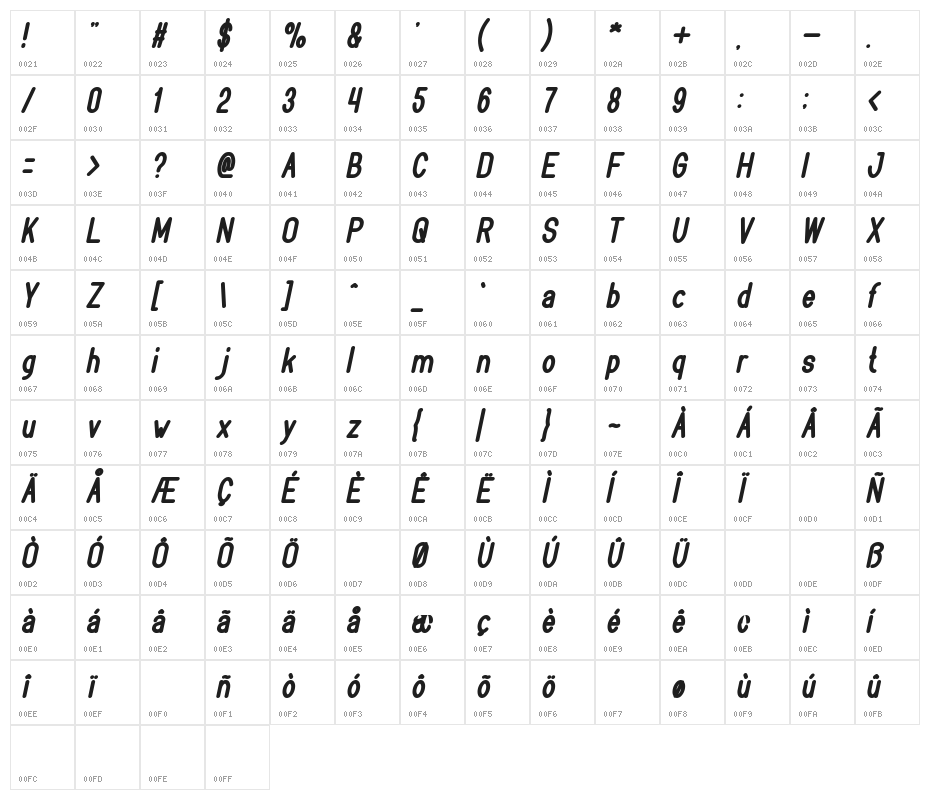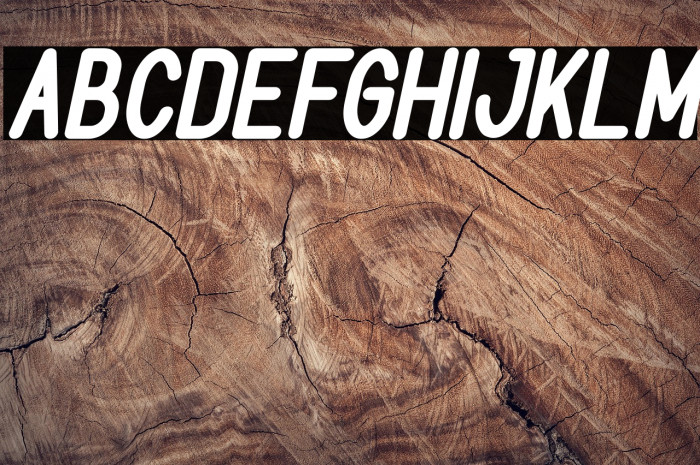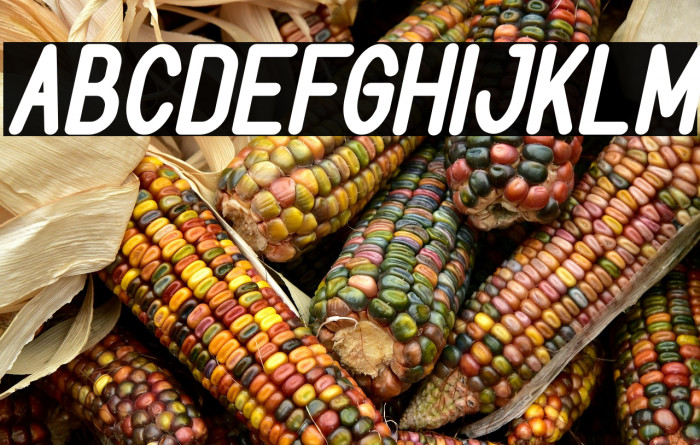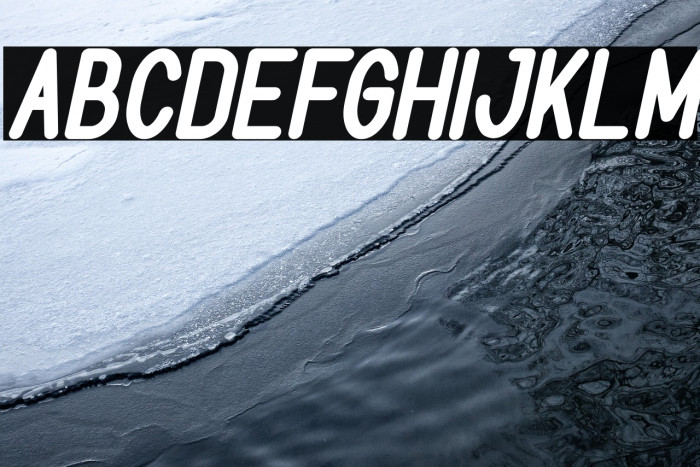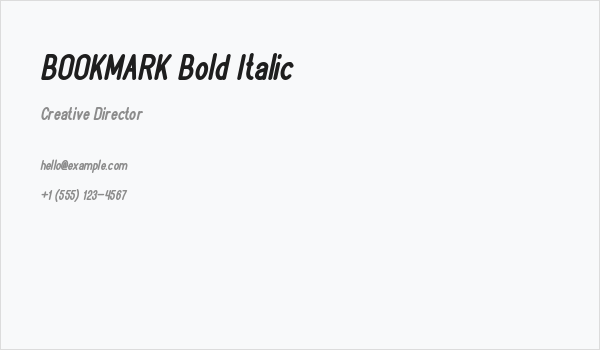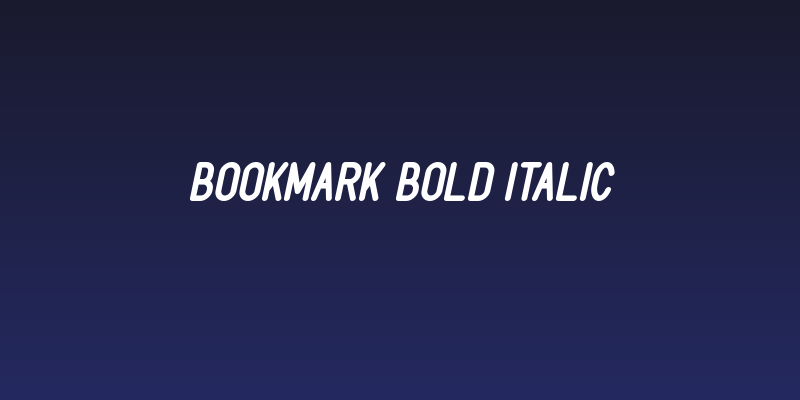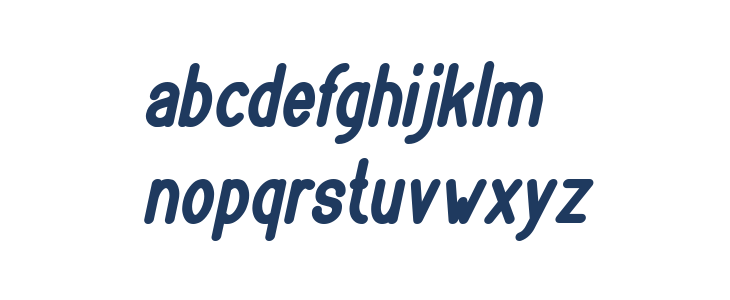
BOOKMARK Bold Italic Font
BOOKMARK Bold Italic Description
This font features a bold and italic style, characterized by its smooth, rounded edges and slightly condensed letterforms. The strokes are consistent in weight, providing a uniform appearance across all characters. The italic slant adds a dynamic and energetic feel, making it suitable for attention-grabbing headlines or titles. The numerals and special characters maintain the same boldness and slant, ensuring cohesion throughout the typeface. Its modern aesthetic is complemented by a medium contrast in stroke thickness, which enhances readability while maintaining a stylish look.